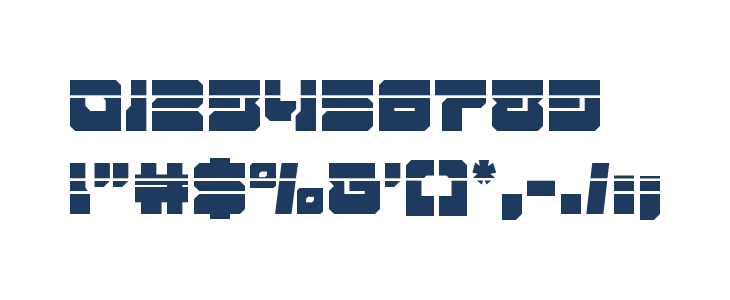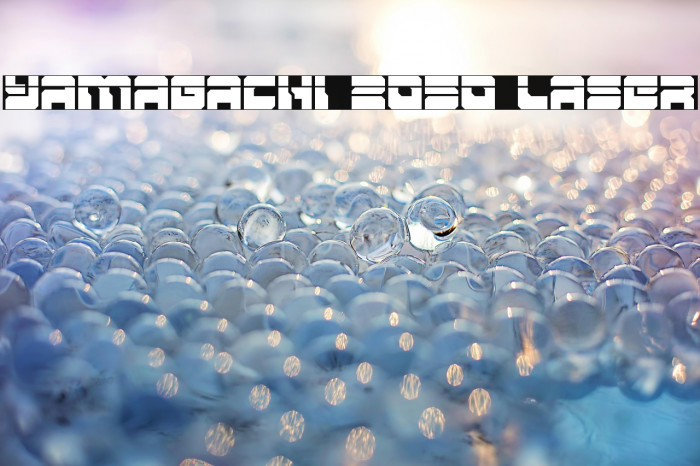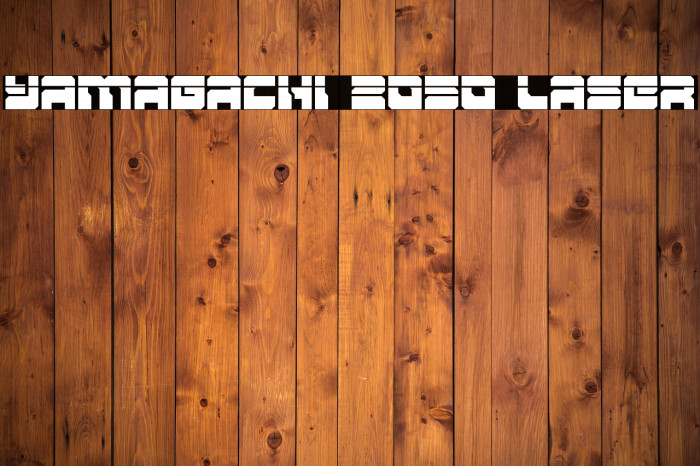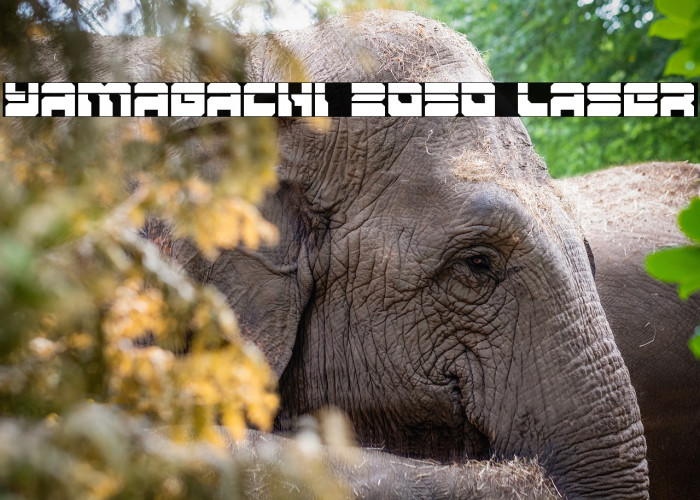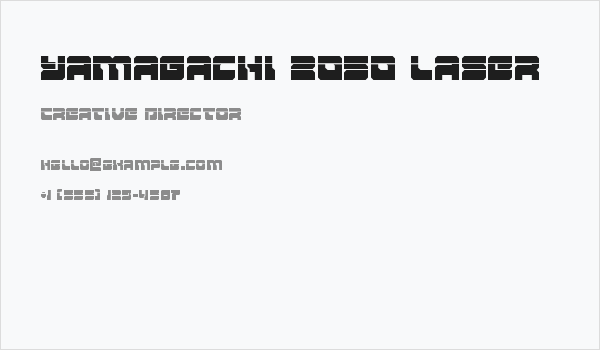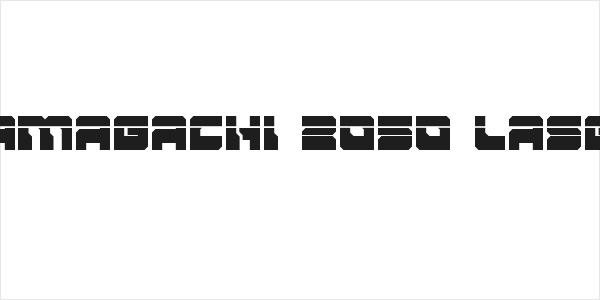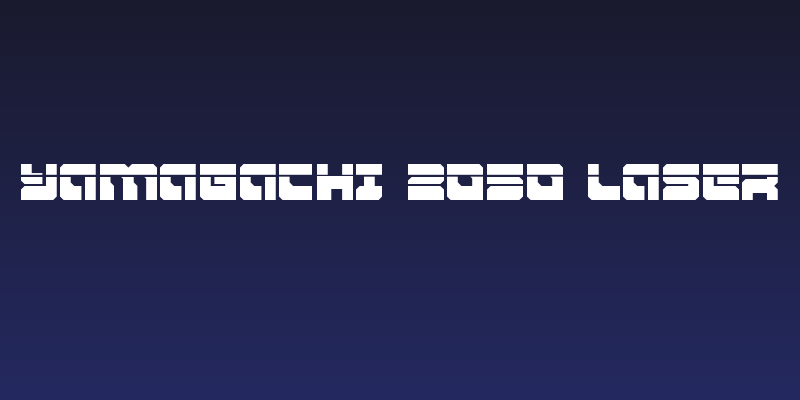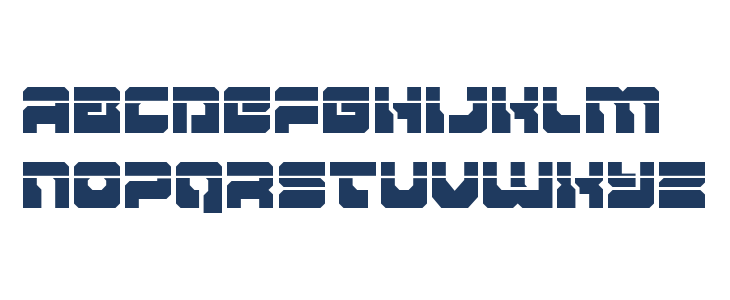
Yamagachi 2050 Laser Font
Yamagachi 2050 Laser Description
This font exhibits a futuristic and bold design, characterized by its geometric and block-like structure. The characters are constructed with sharp angles and straight lines, creating a sense of modernity and technological advancement. The uppercase and lowercase letters maintain a consistent style, with minimal curves and a strong emphasis on angular forms. The numerals and special characters follow the same design principles, ensuring uniformity across the entire typeface. This font's unique aesthetic makes it suitable for projects that aim to convey a sense of innovation and forward-thinking.
| Proposed Projects | Ideal for sci-fi themed designs, tech branding, video game interfaces, and futuristic posters. |